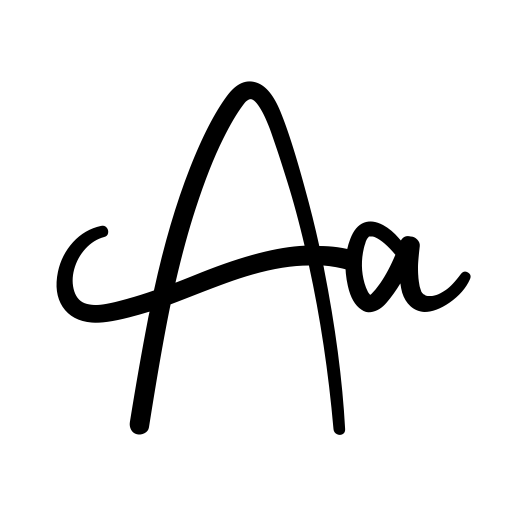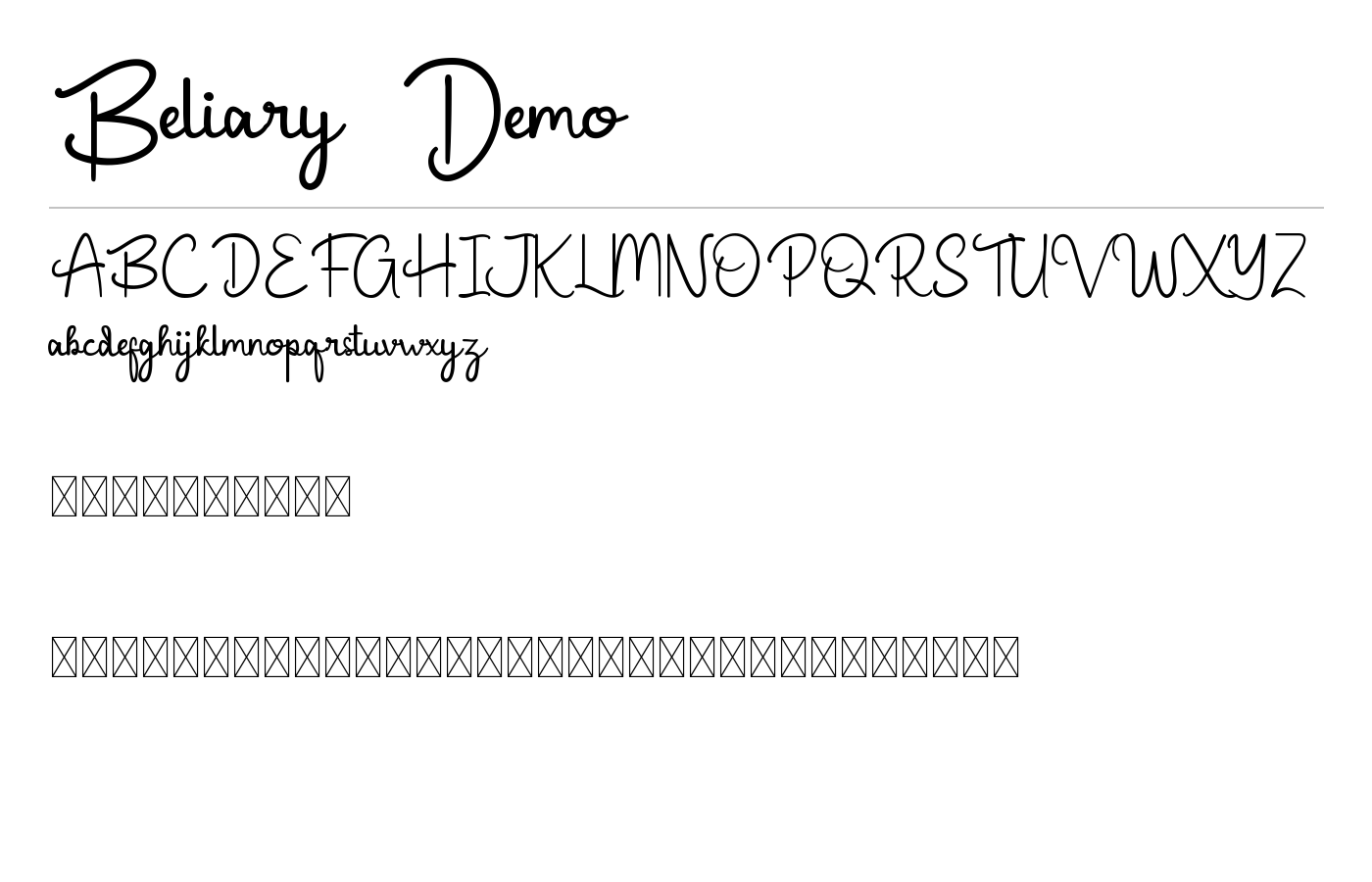
Beliary Demo is a playful, handwritten script font with a casual and friendly feel. Its thin, flowing lines and slightly whimsical letterforms make it ideal for creative, informal projects like invitations, greeting cards, or personal branding. This font works best in display sizes where its unique charm and personality can shine.
Beliary Demo Font
About Beliary Demo Font
| Font family | Beliary Demo Font |
| Designer | Renata & Suci Anita |